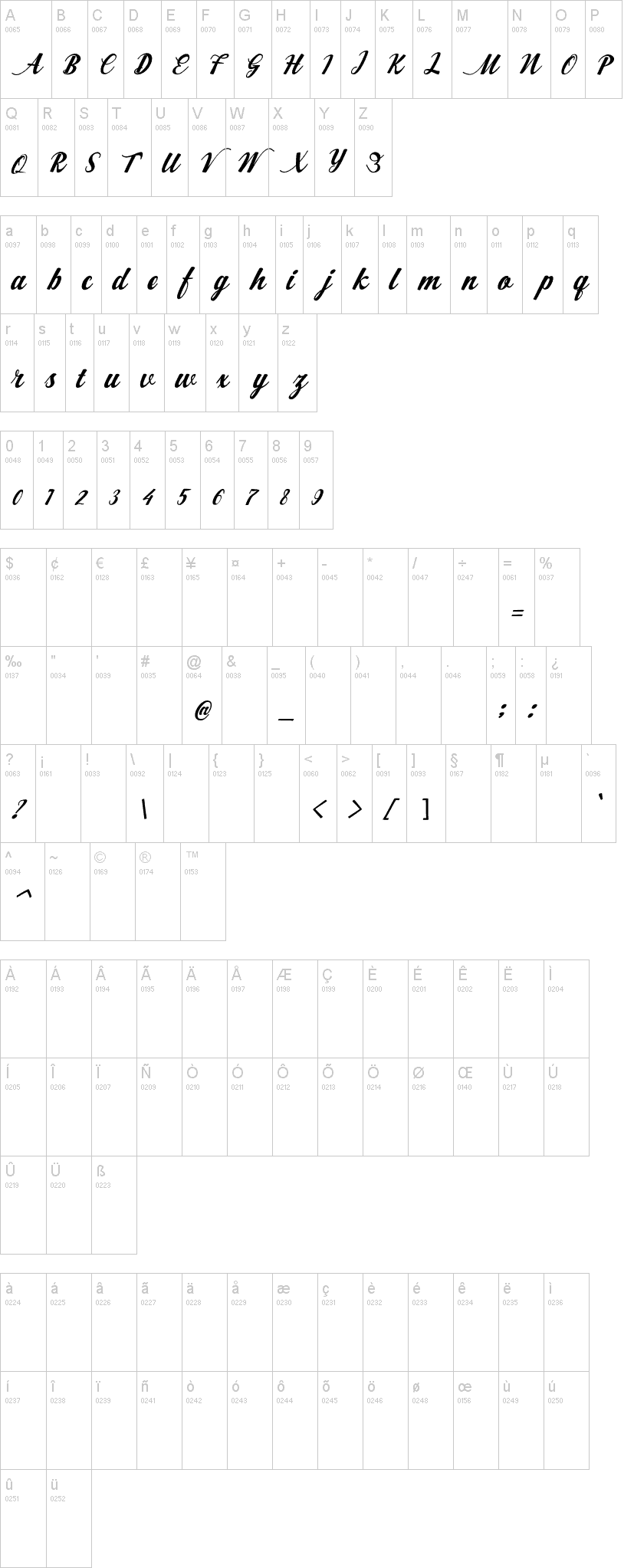
Workside Slant is a well crafted Calligraphy font that is available for free download and use for any purpose from OldStudioo. The free version offers all the letters in the upper and lower case and a couple of other special characters as well.